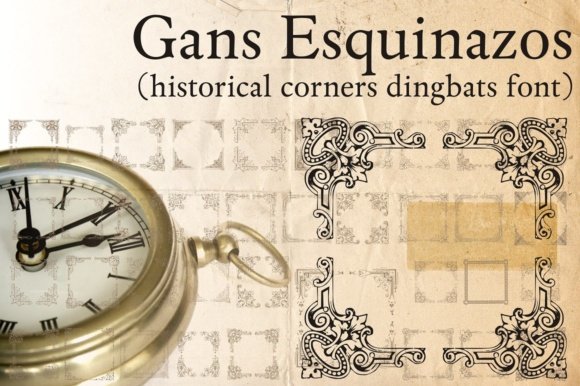
Introduction to Gans Esquinazos Font
Gans Esquinazos is a decorative font design of many borders, ornaments and frame like illustrations.
This is a beautiful collection of 40 original dingbats researched from Richard Gans’ extinct typefoundry’s rare catalog .